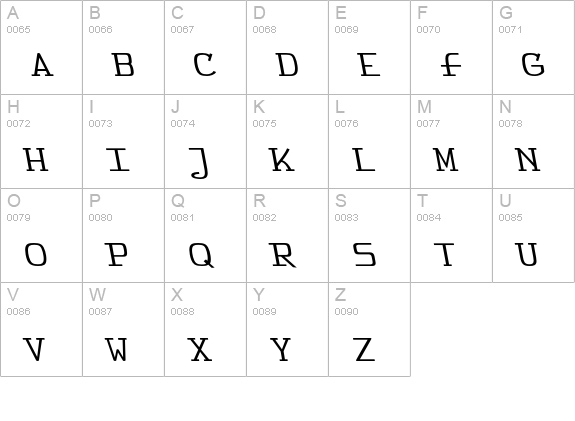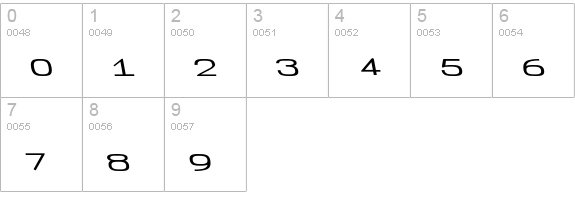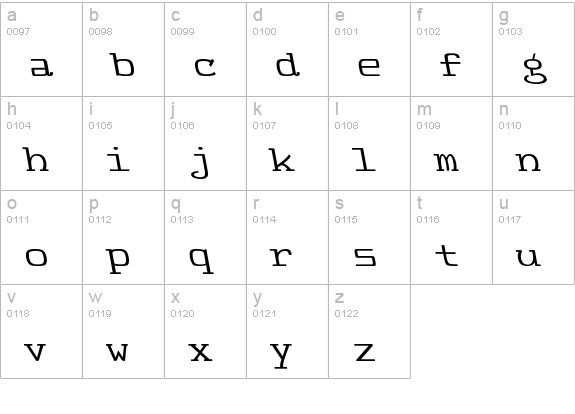
Mirror Font Details
Discover the captivating beauty of Mirror font, a versatile and elegant typeface that exudes sophistication and style. With its sleek lines and modern design, Mirror font is perfect for adding a touch of luxury to any project. This exquisite font is now available for free download at FontsMarket.com, making it easily accessible to all designers and creatives looking to elevate their work with a touch of class and elegance. Embrace the timeless charm of Mirror font and unlock endless possibilities for your designs.